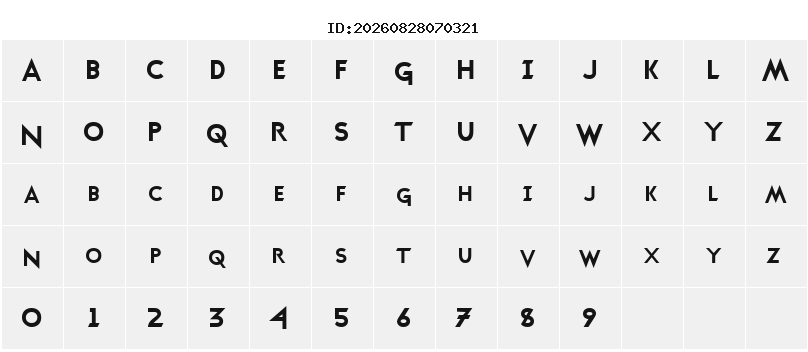
Transmetals Preview
• Font Name: Transmetals
• Full Font Name: Transmetals Normal
About Transmetals.ttf
Transmetals.ttf is a modern, elegant sans-serif font designed for ultimate readability and visual harmony. Perfect for branding, headlines, web design, and print materials.